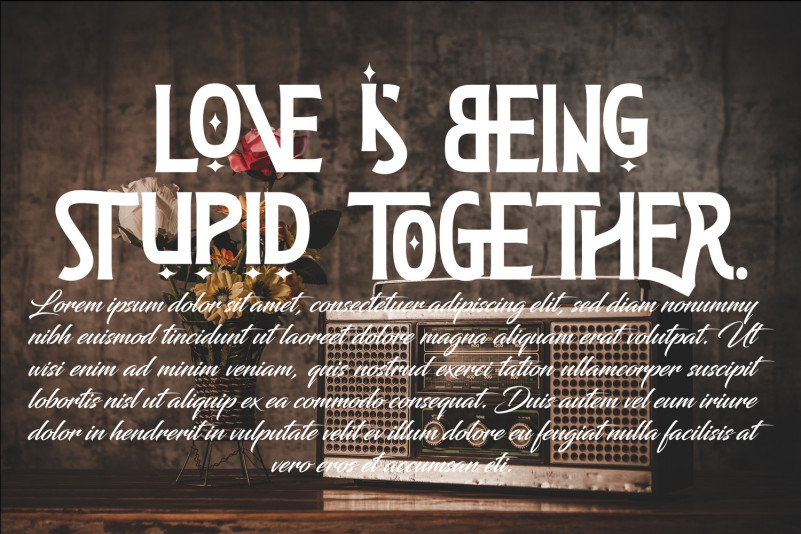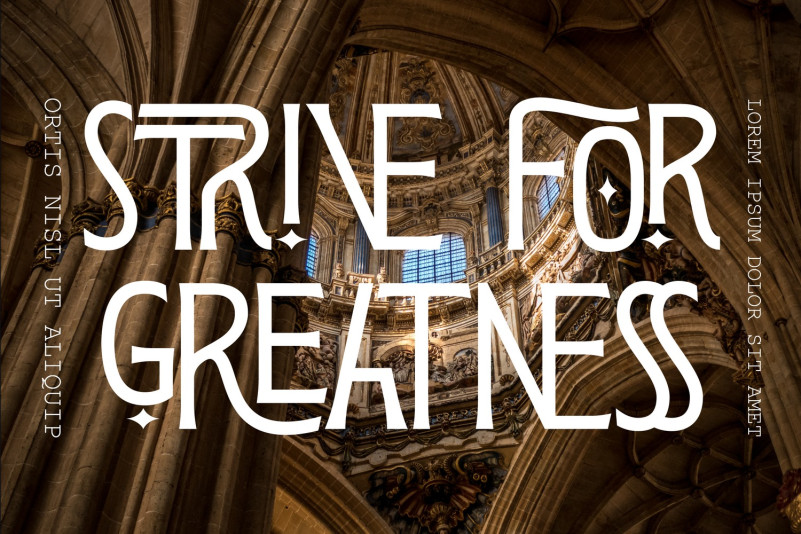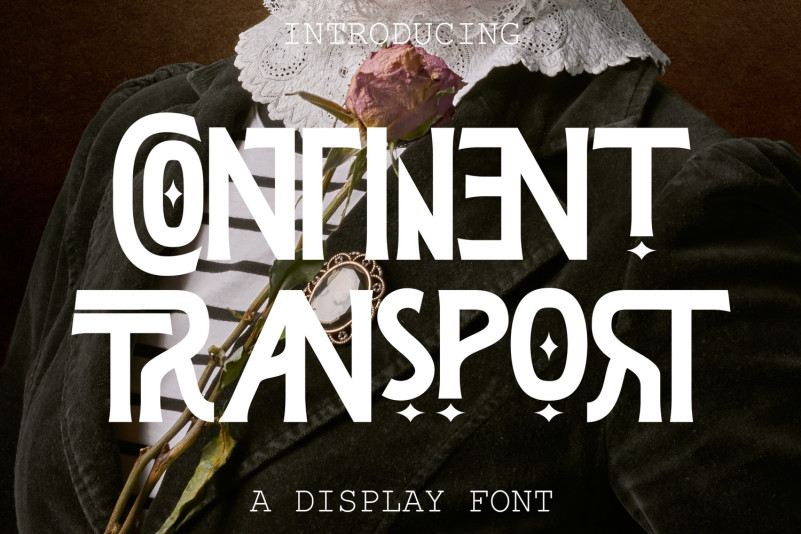
Continent Transport Font
Continent Transport Font – Stylish Ligatures Serif Font is an elegant, unique font that uses ligatures to smoothly link letters. This is a beautiful serif font, a blend of modern and old styles and equipped with unique ligatures, discretionary ligatures, and alternates. It’s perfect for branding projects, logos, social media posts, advertisements, product packaging, wedding invitations, product designs, label, photography, watermark, stationery and so much more.
To make it look more unique, here we prepared some ligatures:
AC AD AL AN AR AS AT AU AV BE CA CE CH CO CT DE DI EA EC ED EL EM EN EP ER ES ET FE FO FR GE HA HE HI HO IE IC IL IN IO IR IS IT JU KE LA LE LI LO LY MA ME MI NC ND NE NG NO NS NT OC OF OM ON OP OO OT OU OW PA PR RA RD RE RI RO RS RT SE SH SI SO SS ST TA TE TH TI TO TR TT UM UN UR VE WI WO